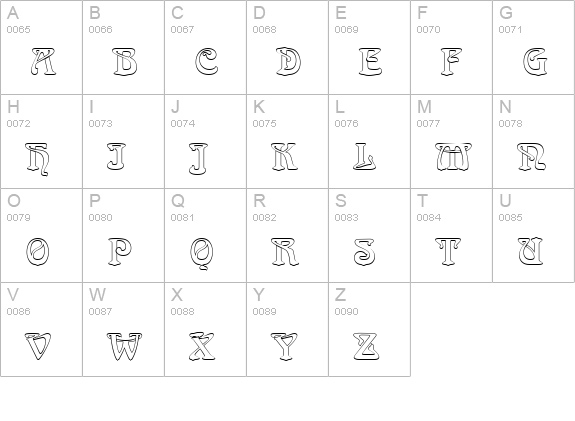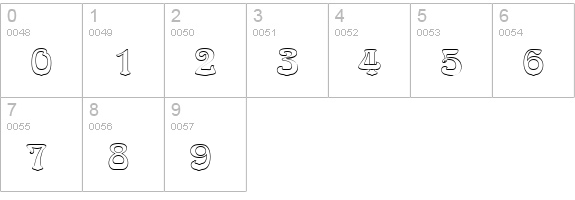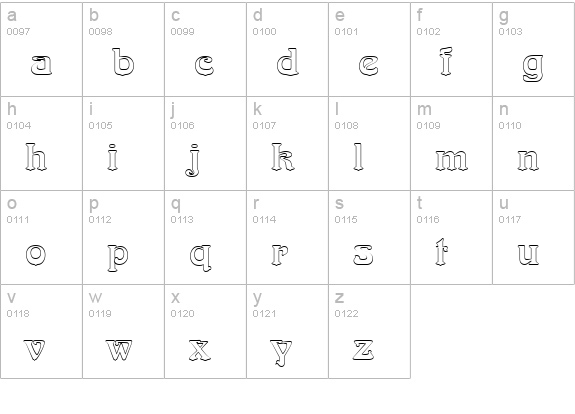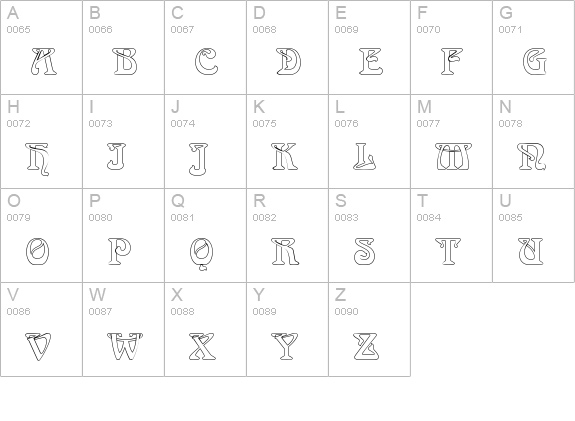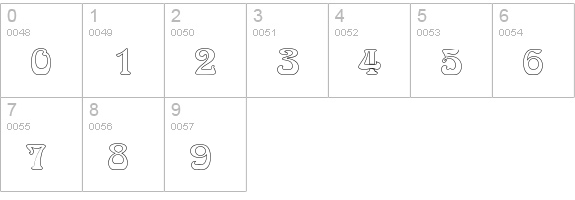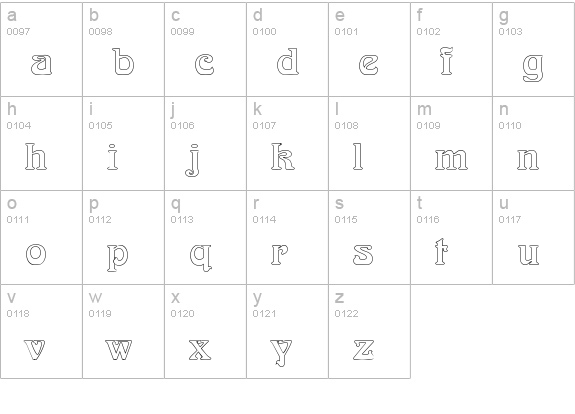
ArnoldBoeDOu1 Font Details
ArnoldBoeDOu1 is a modern and stylish font that exudes sophistication and creativity. Its sleek lines and unique curves make it stand out in any design project, whether it's for branding, advertising, or editorial purposes. This versatile font is perfect for adding a touch of elegance to your work while maintaining a contemporary edge. The ArnoldBoeDOu1 font is freely available to download at FontsMarket.com, making it accessible to designers and creatives looking to elevate their projects with a high-quality typeface. With its clean and polished appearance, ArnoldBoeDOu1 is sure to make a statement and leave a lasting impression on viewers. Whether you're designing a logo, website, or print materials, this font is a great choice for adding a touch of sophistication and professionalism to your designs.